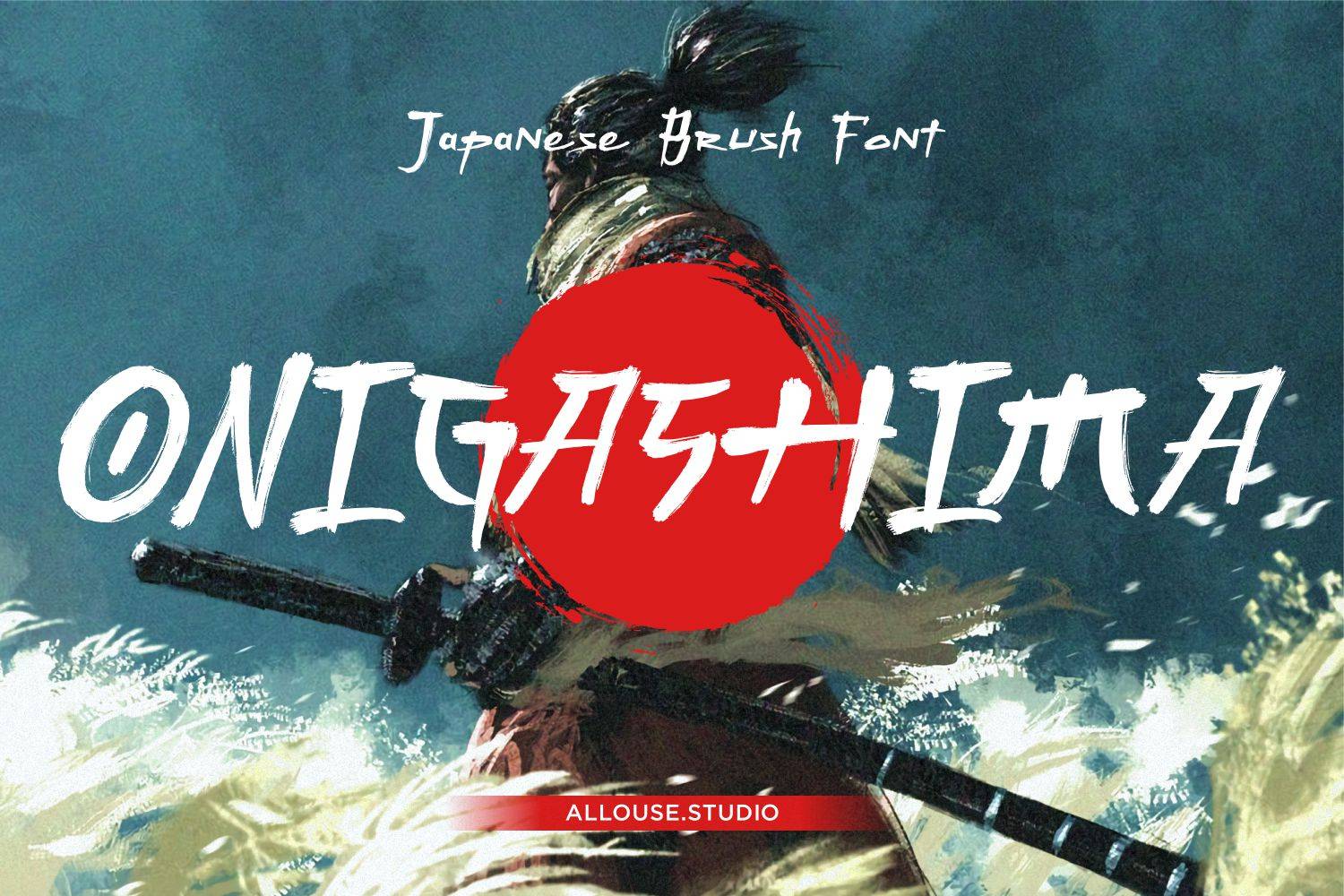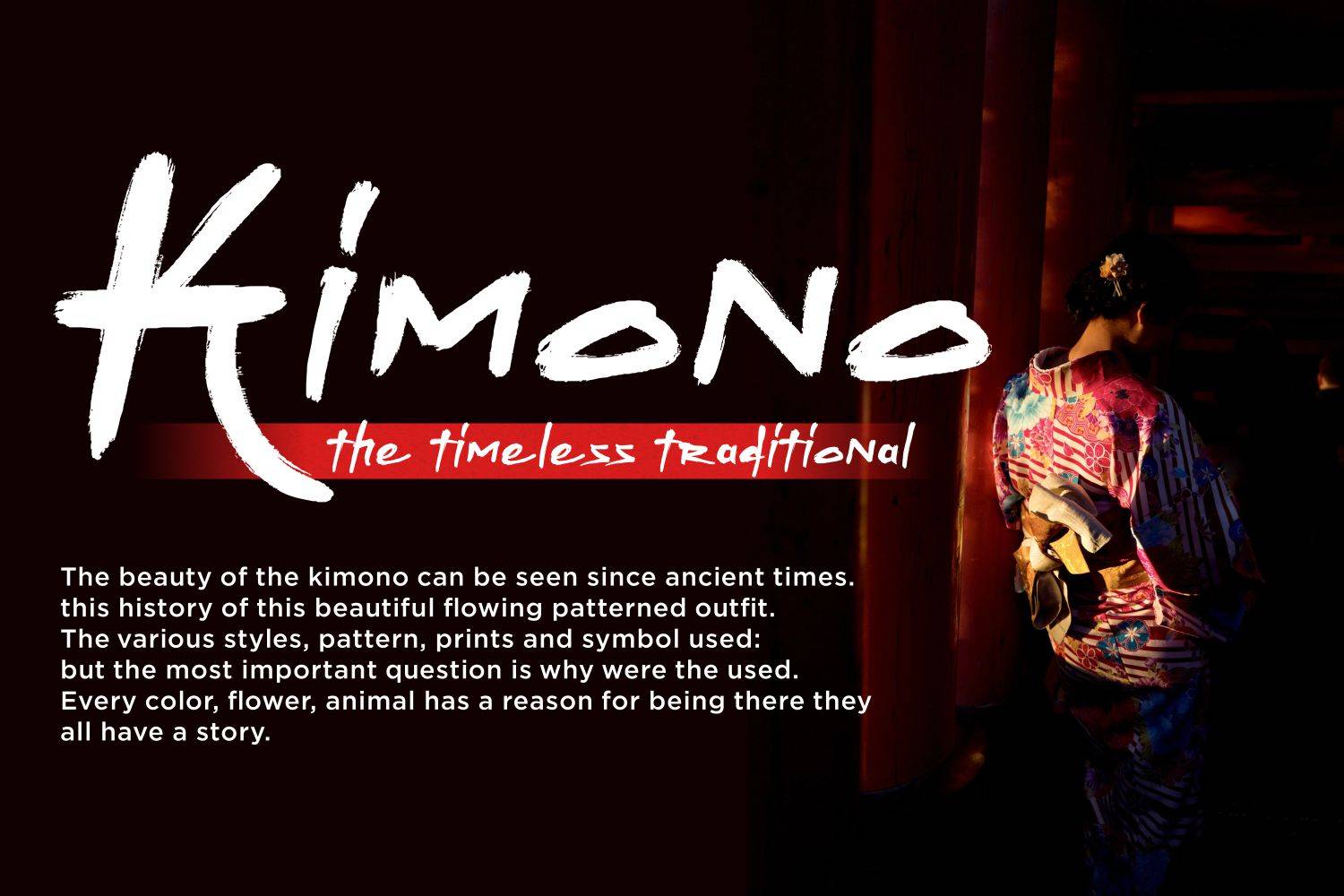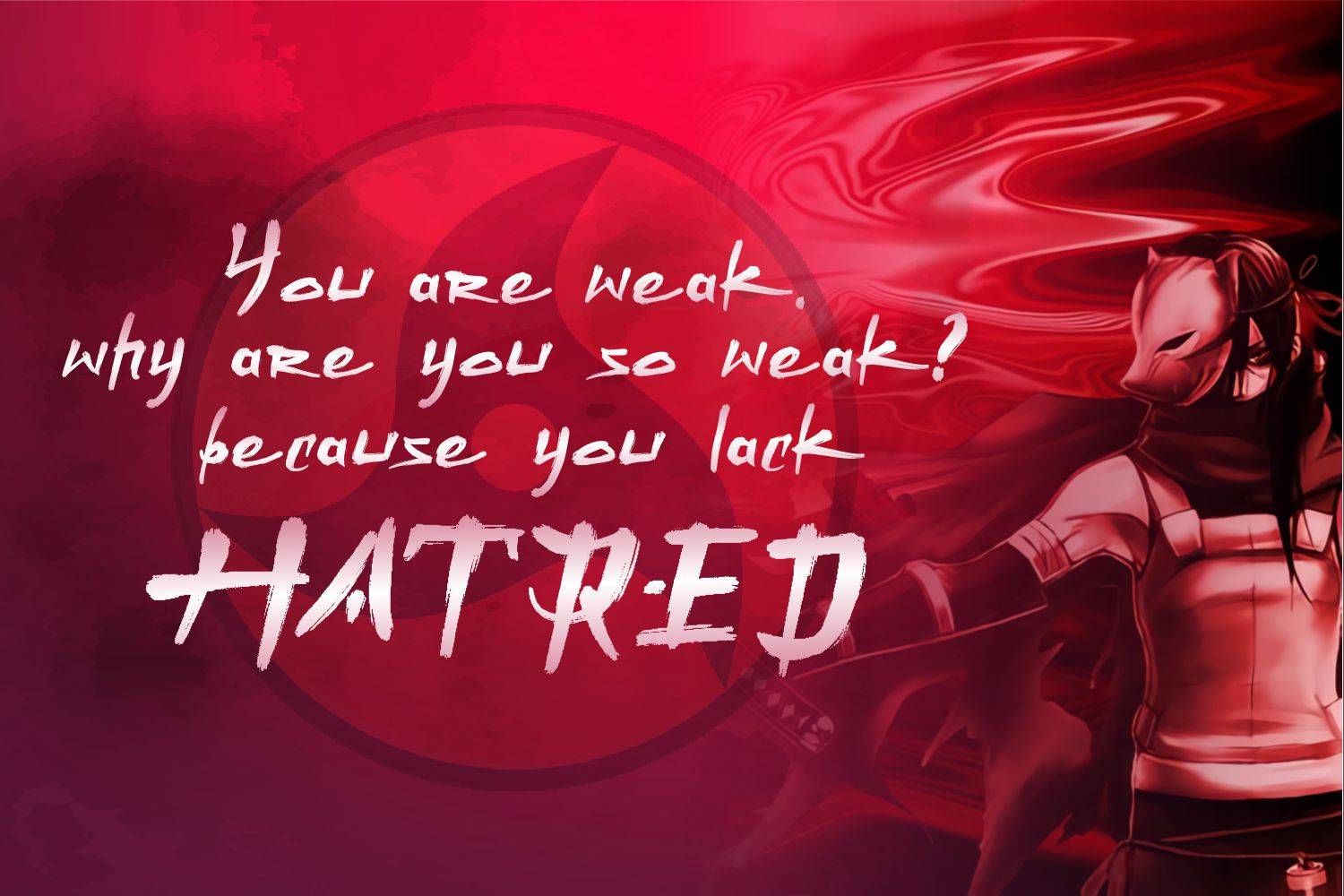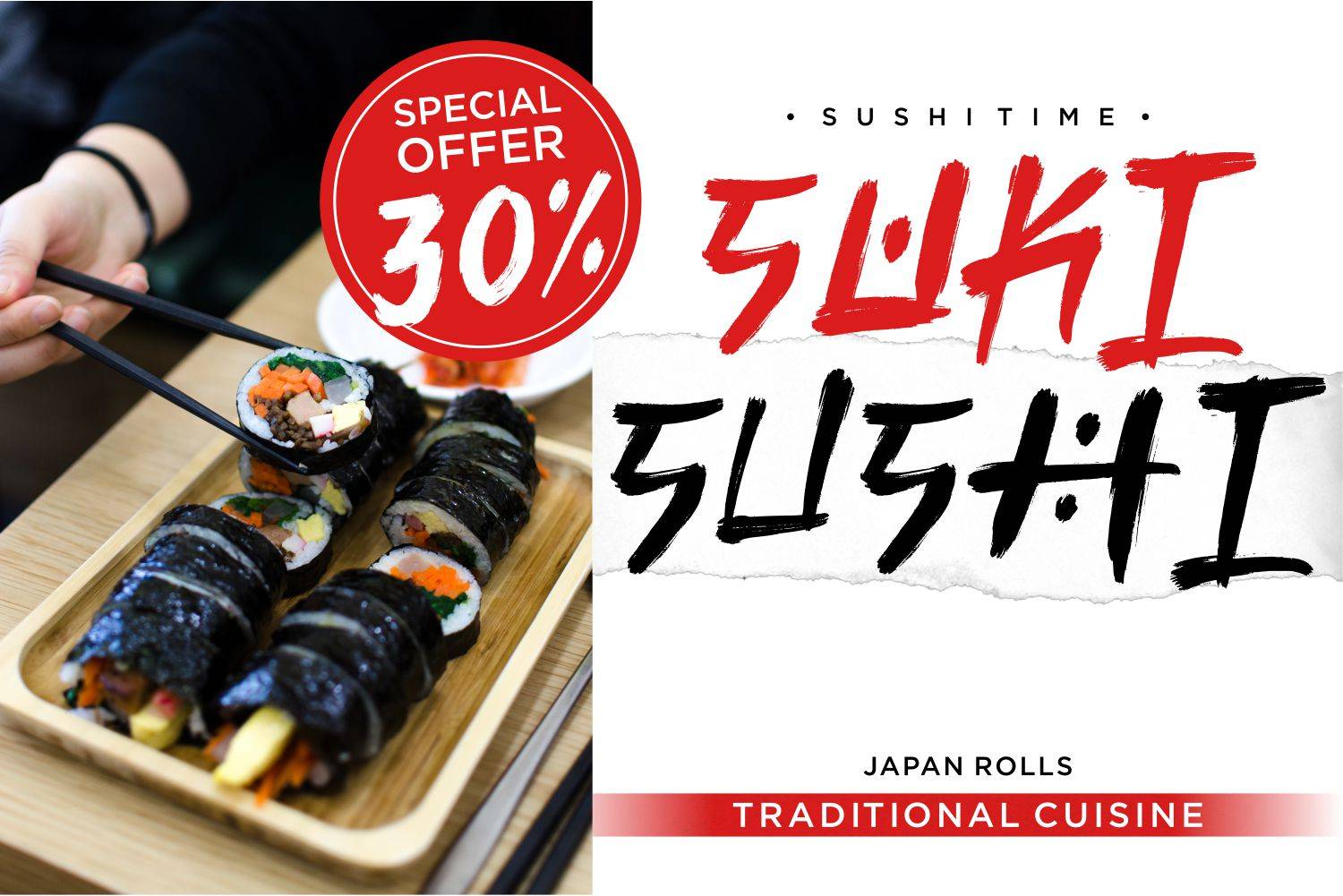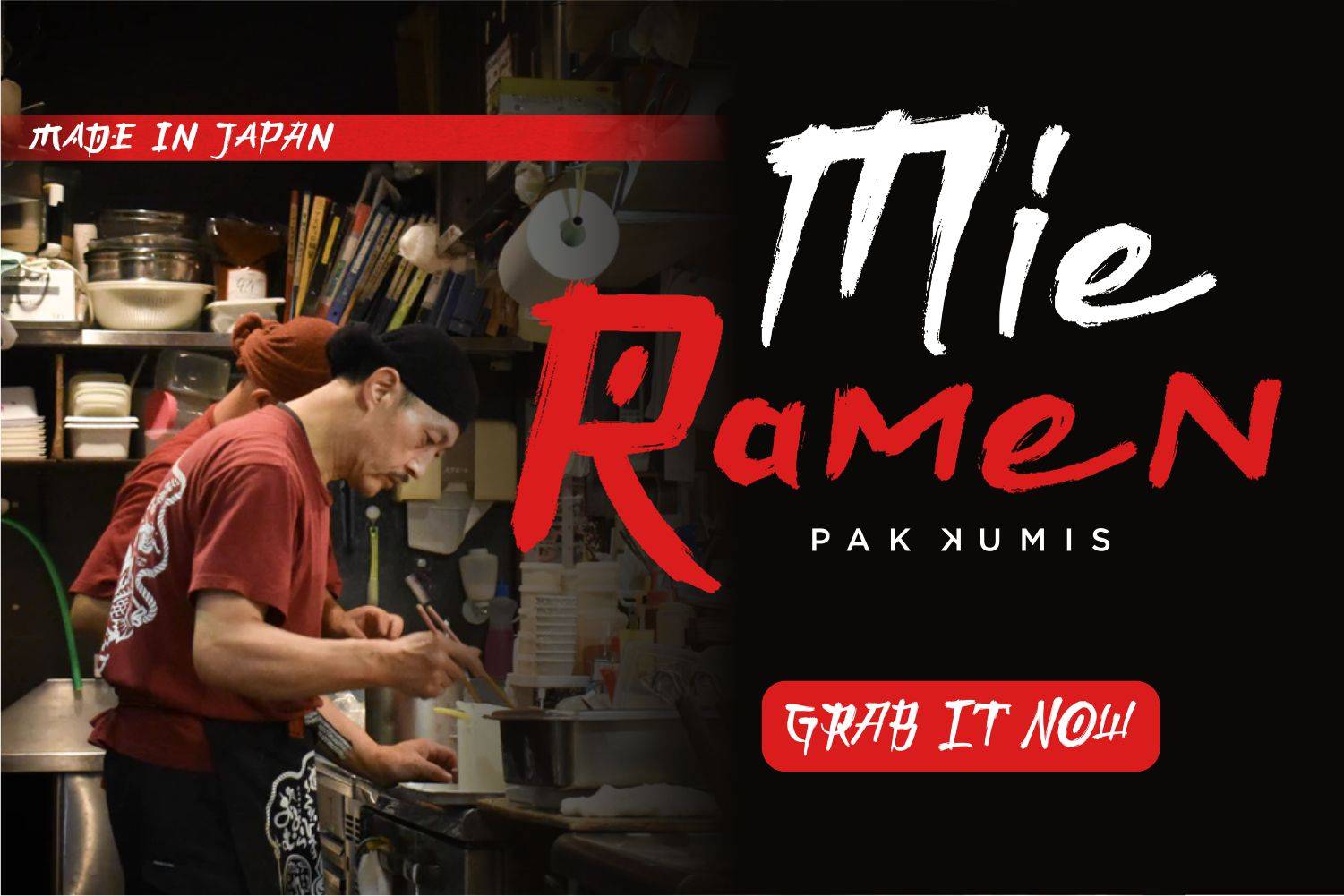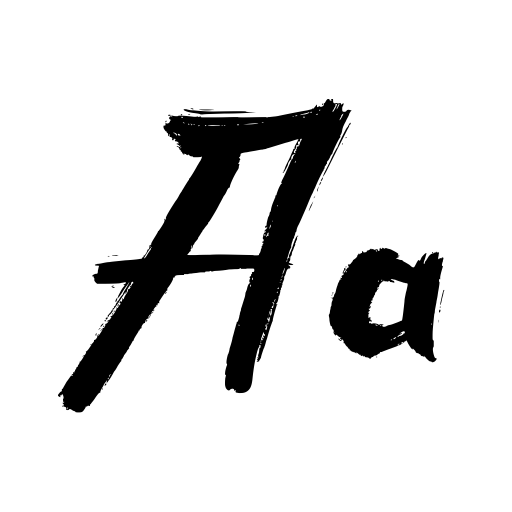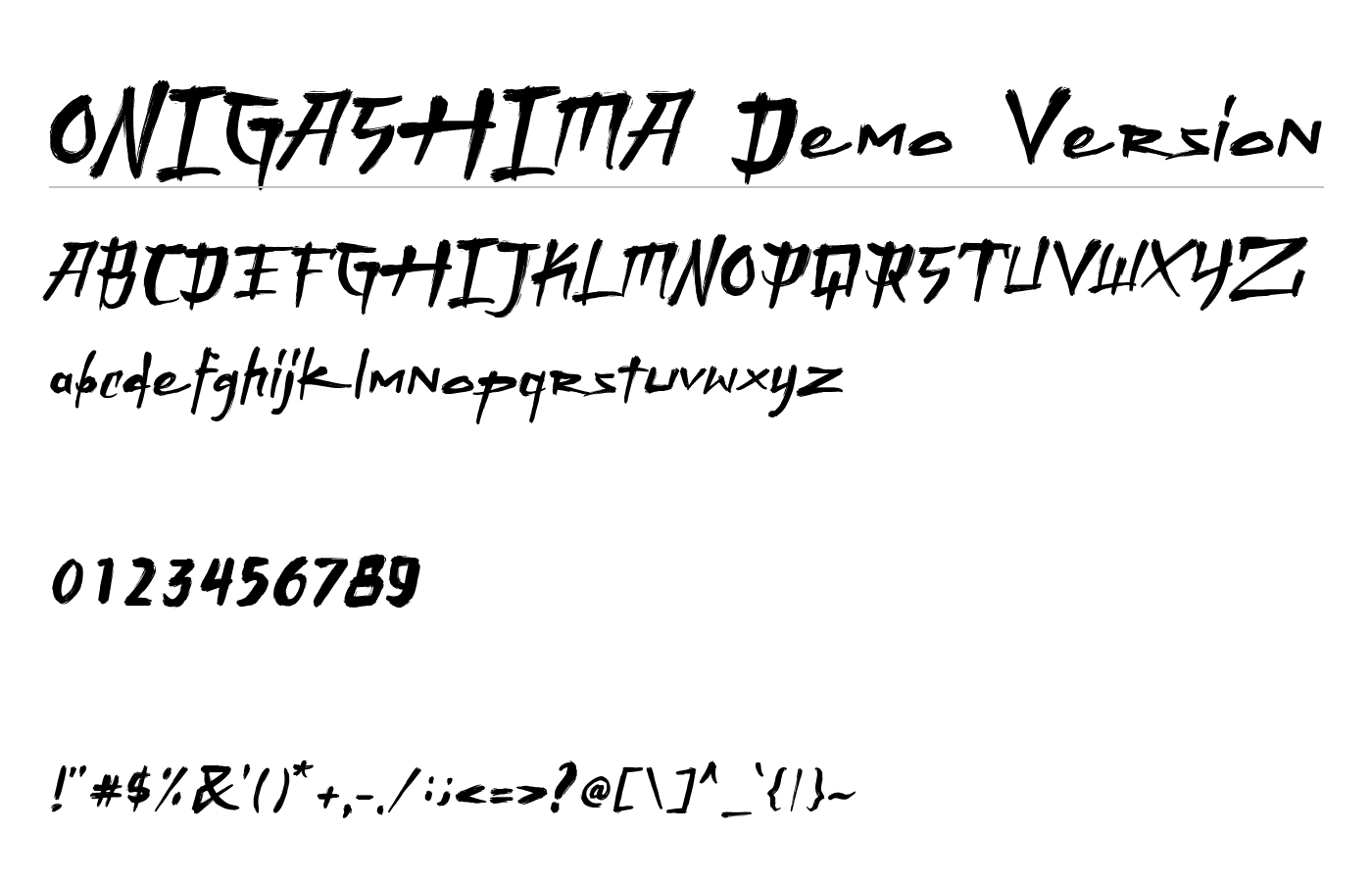
Onigashima is a dynamic, hand-drawn script font with a rough, brushstroke texture that gives it an edgy and expressive character. Its irregular, sharp letterforms and uneven weight create a sense of energy and movement, making it ideal for creative projects needing a bold and informal style. This font works best for posters, logos, and headlines where a striking, artistic look is desired.
Onigashima Font
About Onigashima Font